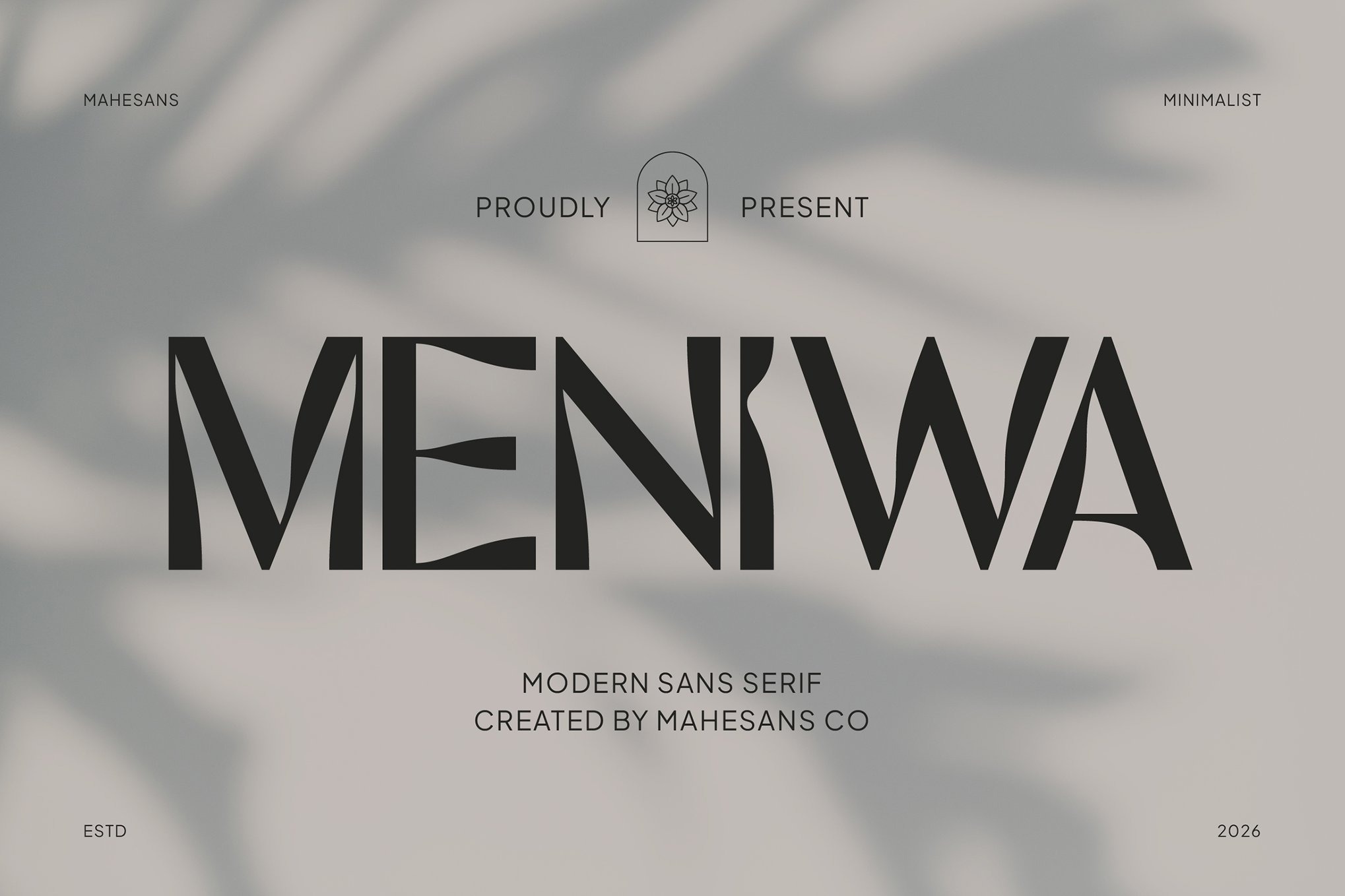
Meniwa Font
Meniwa Font is a professionally designed typeface that delivers clarity, structure, and consistent performance across various design applications. Meniwa is an elegant modern sans serif font designed to bring sophistication, balance, and artistic character into every design project. Featuring sleek geometric forms blended with graceful curves, Meniwa creates a luxurious and contemporary visual identity that feels both timeless and fashion-forward.
With beautifully crafted ligatures and alternate characters, this font delivers a unique editorial look perfect for premium branding and modern creative work. Its minimalist yet expressive style makes it highly versatile across both digital and print applications.